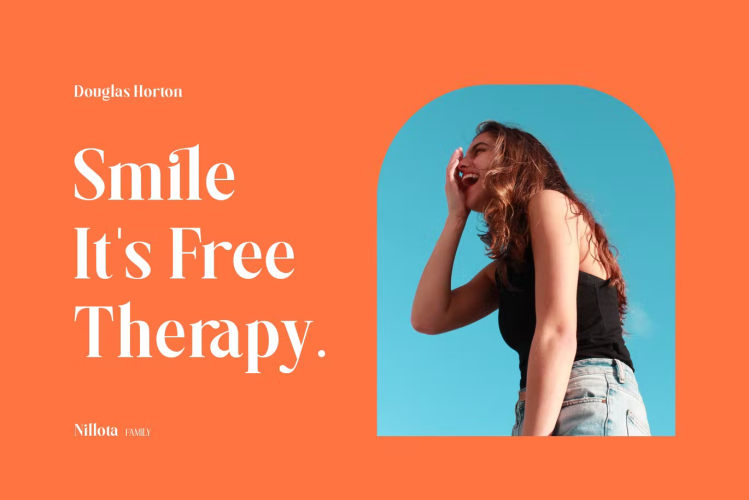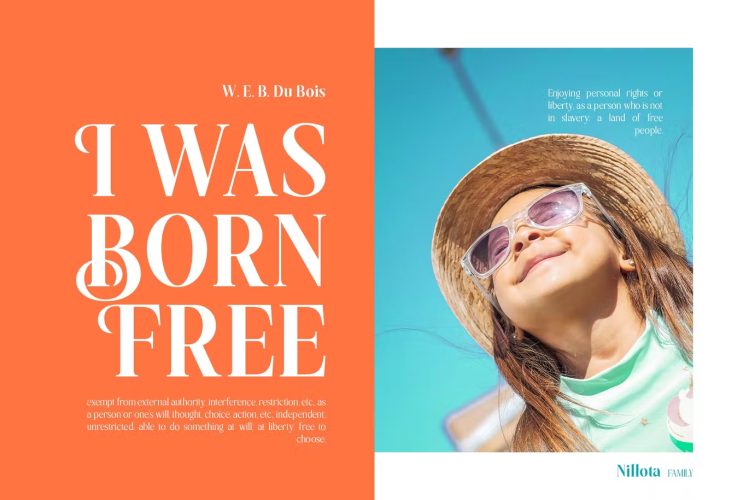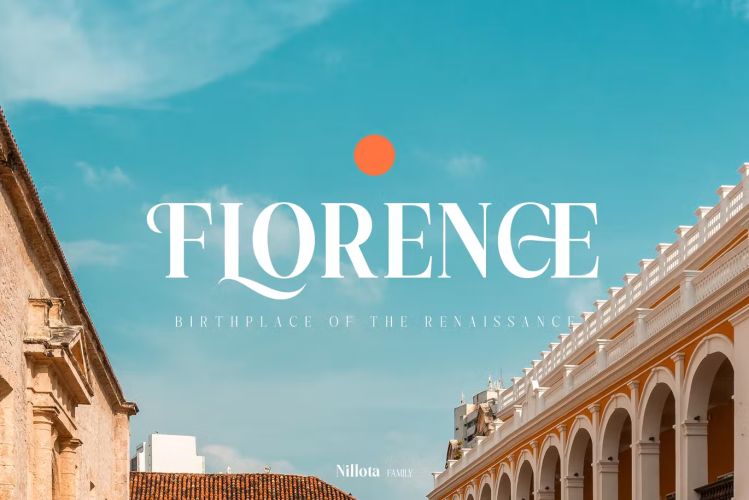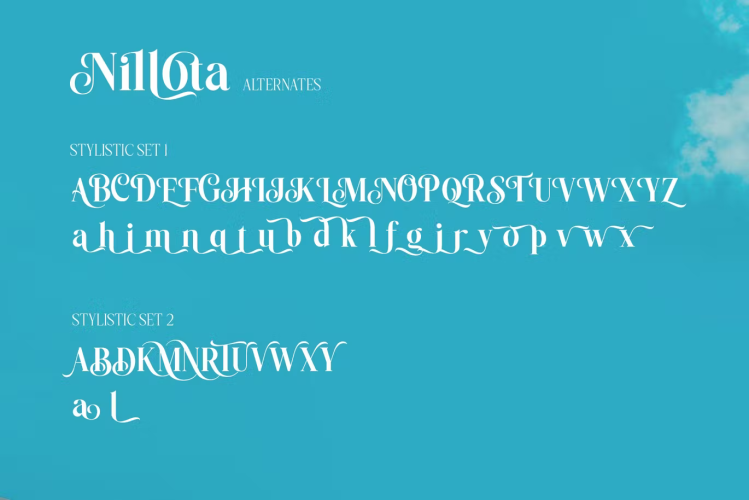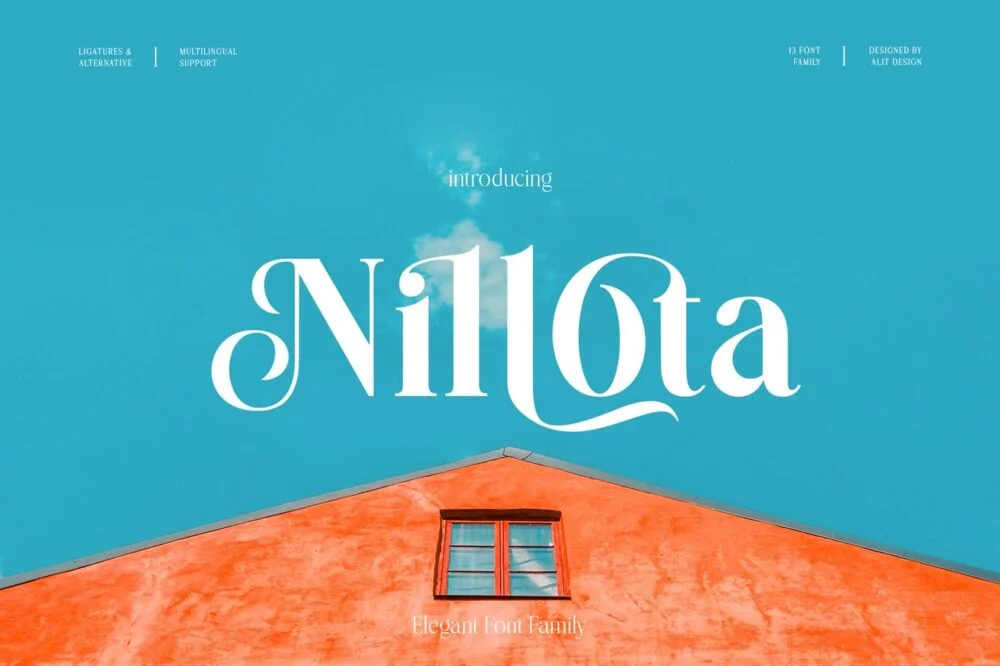
Nilota Font
Nilota Font Serif typeface is an elegantly themed font that has a dynamic serif style. The details of the shape of the “Nilota Serif Elegant typeface” are very smooth and flow to create unique and beautiful curves.
Elegant Serif typefaces such as “Nilota Serif Elegant typeface” are very easy to apply to any design, especially those with an elegant and smooth concept, this font is very easy to use both in design and non-design programs because everything changes.
The Nilota Serif Elegant typeface contains 618 glyphs with many unique and interesting alternative options.
Where Nilota Font works best
Nilota Font gives long-form text a classic, trustworthy rhythm — ideal for magazine spreads, annual reports and book interiors.
Pair Nilota Font with generous letter-spacing for wordmarks in fashion, hospitality, wine and jewellery branding.
Use Nilota Font for slide titles in Keynote, PowerPoint or Google Slides to add authority without looking dated.